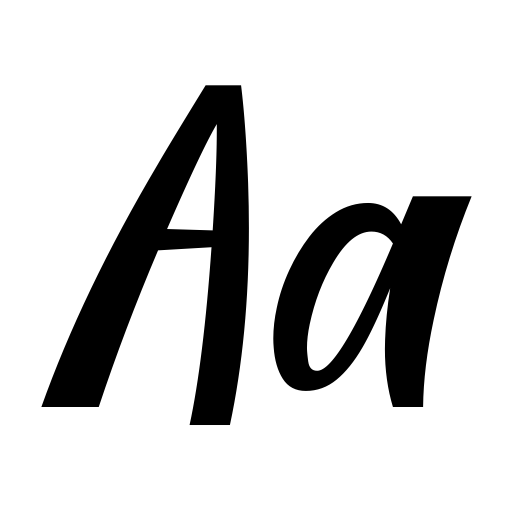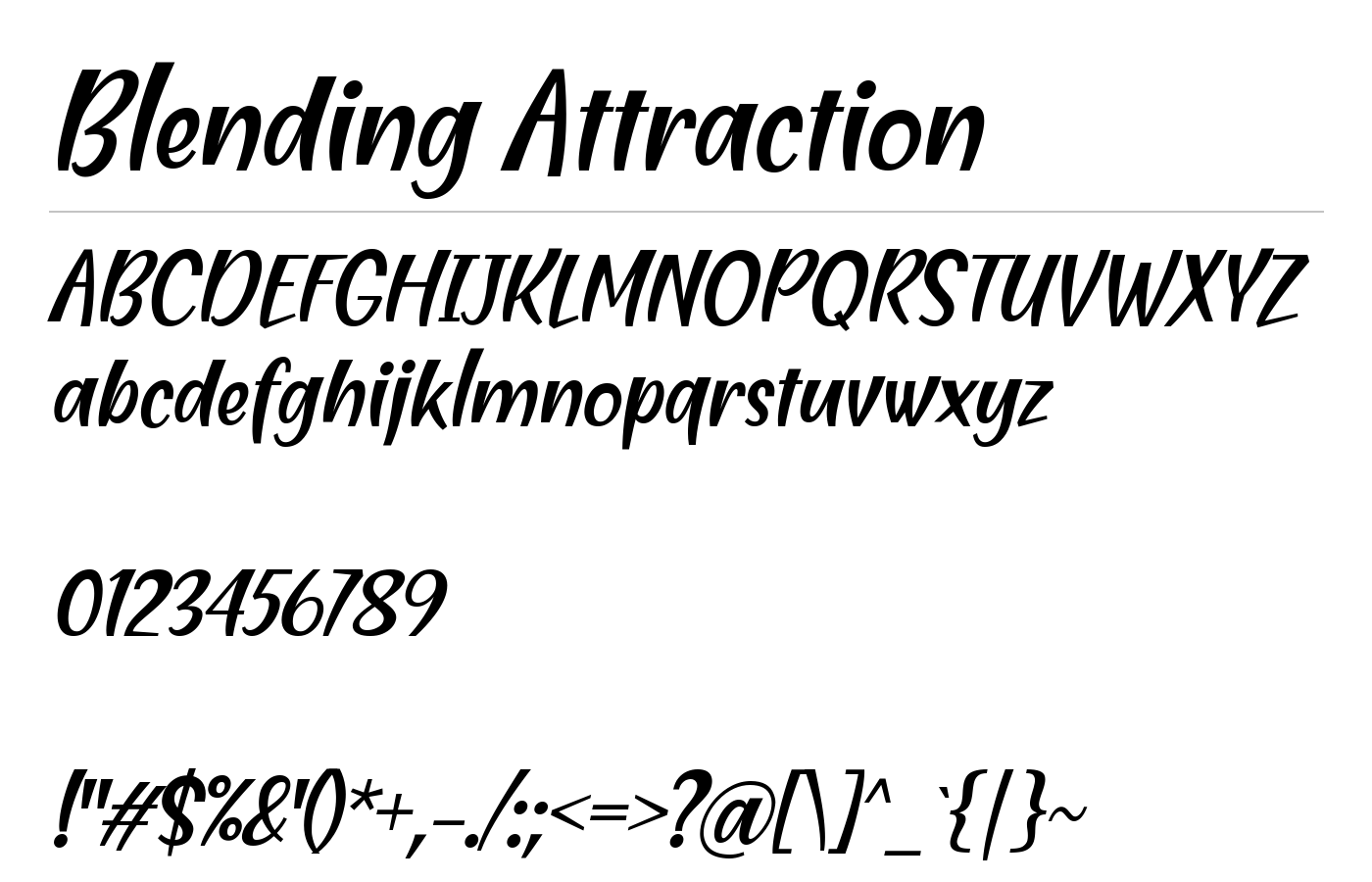
Blending Attraction is a stylish sans serif font with a strong, italicized slant that conveys energy and movement. Its clean, slightly condensed letterforms and moderate stroke contrast create a modern and dynamic feel, making it ideal for eye-catching headlines, branding, and display purposes where personality and clarity matter. This font works especially well for creative, contemporary projects that want to blend elegance with a playful, confident attitude.
Blending Attraction Font
About Blending Attraction Font
| Font family | Blending Attraction Font |
| Designer | Situjuh Nazara |